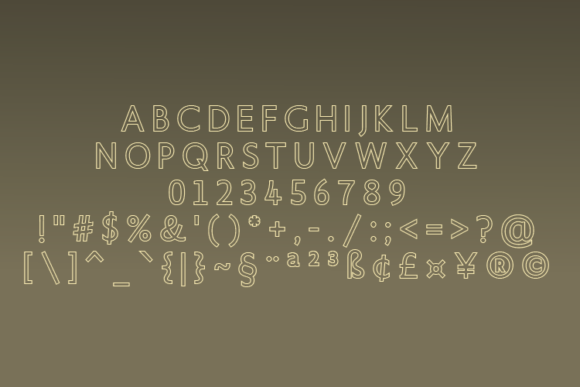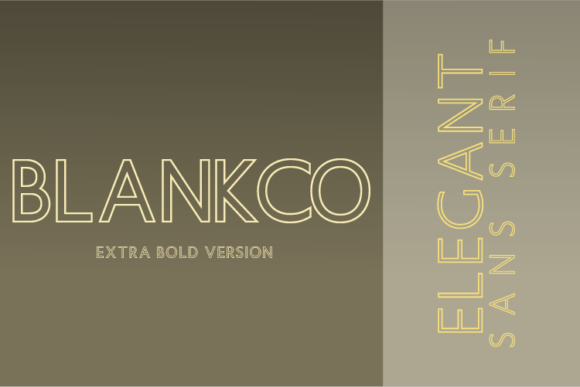
Introduction to Blankco Outline Extra Bold Font
Blankco Outline is a fresh, geometric, sans-serif font.
Blankco has a big x-height value, ​geometrical letterforms, sharp edges and a small stroke contrast, similar to the neo-grotesk fonts of the 20th Century The typeface is extremely versatile and can be used in magazines, posters, branding, websites and much more.